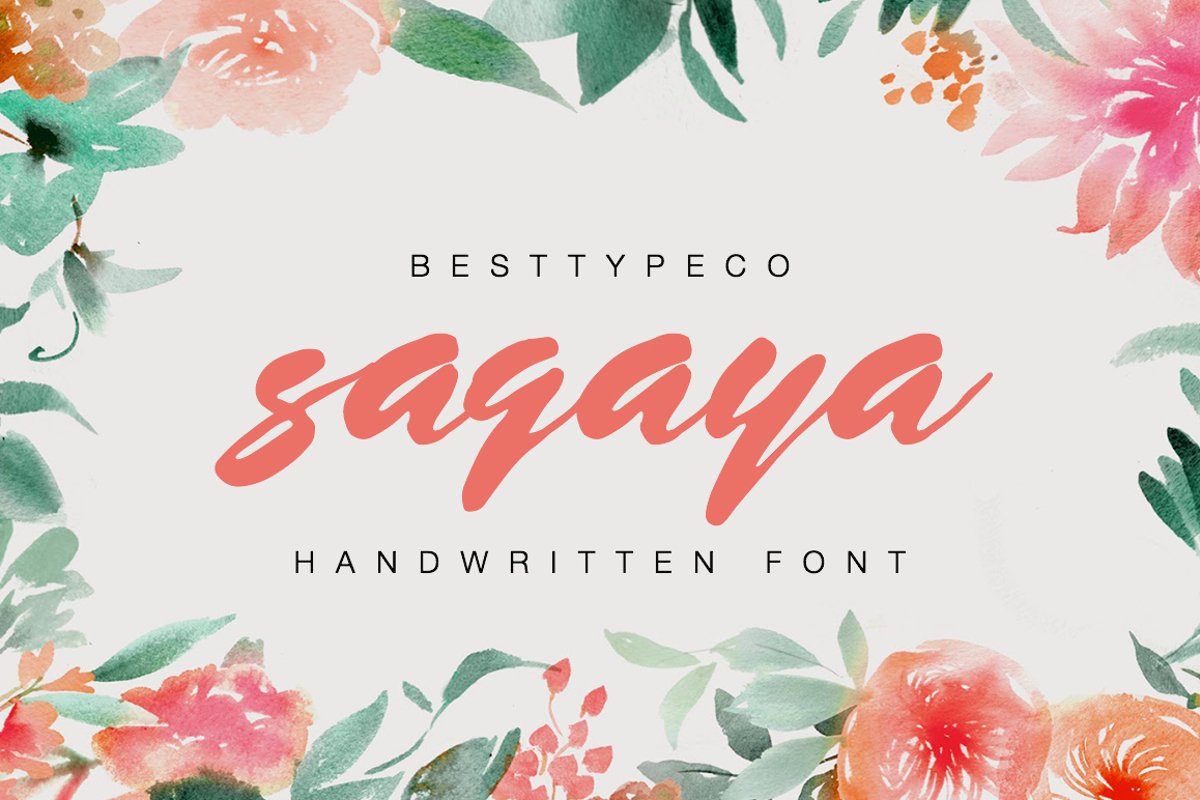
Introducing Sagaya my new handwritten fontSagaya - a new fresh handmade calligraphy font. Very suitable for greeting cards, branding materials, business cards, quotes, posters, and more!This font are perfect for wedding postcard. Or you can create perfect and unique design of your logo, blog, stationery, marketing, magazines and more :) ZIP INCLUDED Sagaya OTF Sagaya TTF Sagaya WOFF Thanks for looking and we hope you enjoy it as much as we did creating it! BESTTYPECO